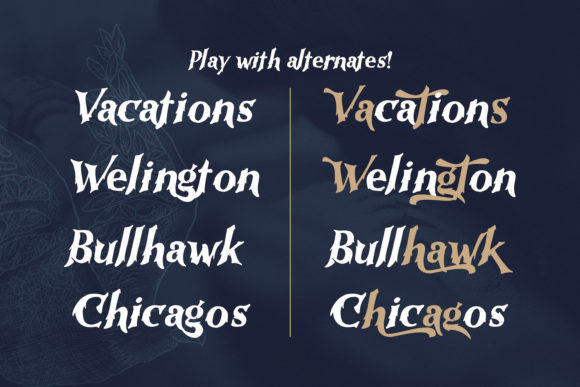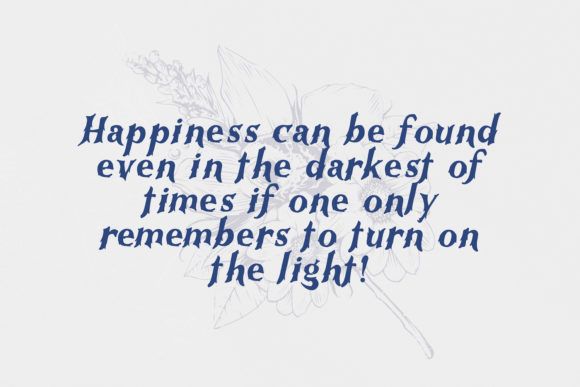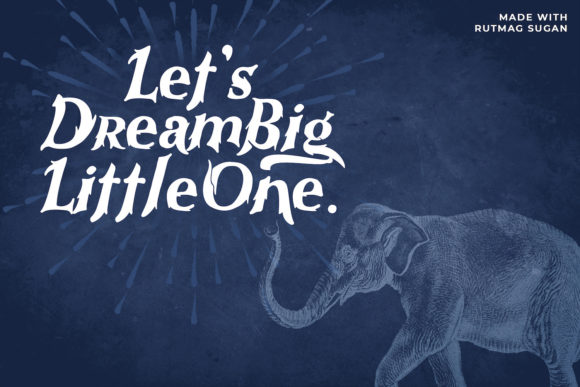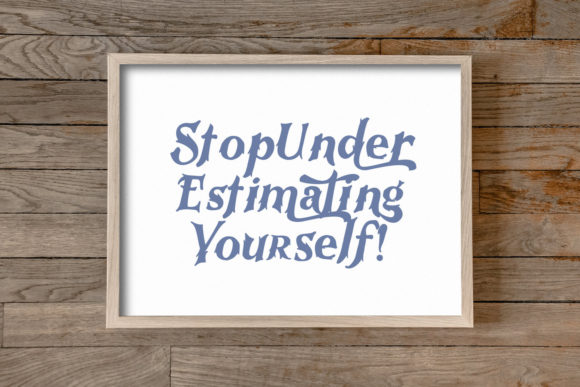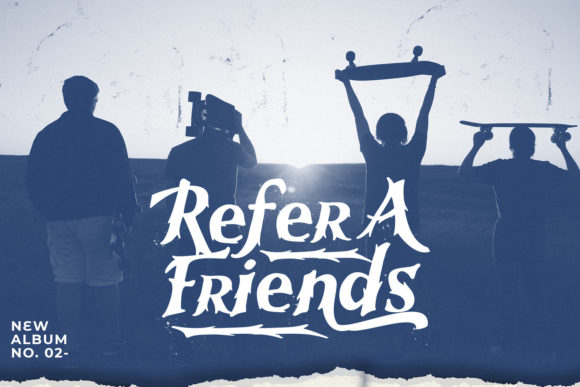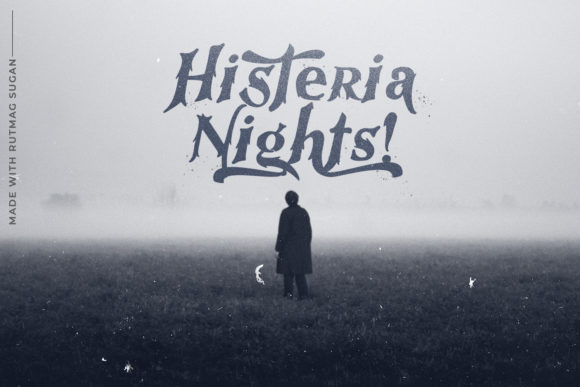
Introduction to Rutmag Sugan Font
Have you ever been working on a creative project and found the perfect font to elevate your design, but only to realize it’s no longer available for download? The frustration is real. But what if I told you about a game-changing display font that’s not only high quality but also free to download?
Meet the Rutmag Sugan Font, a unique and stylish typeface that’s about to take your design to the next level. With its interestingly shaped characters and cool modern flair, this font is perfect for adding a touch of sophistication to your projects. Whether you’re working on a branding project, creating a social media campaign, or designing a website, the Rutmag Sugan Font is a valuable resource that’s sure to impress.
So, what makes the Rutmag Sugan Font so special? For starters, its transparent background allows it to blend seamlessly with any design element, making it a versatile design resource that’s perfect for a wide range of creative projects.
Key Features of Rutmag Sugan Font
- The Rutmag Sugan Font is a high-quality design resource ideal for creative projects requiring a unique and stylish touch.
- This free download font features a transparent background, allowing for seamless integration with various design elements.
- Rutmag Sugan Font is a versatile design element, suitable for use in various contexts, including logos, headings, and body text.
- The font’s unique characteristics, including its elegant and modern design, make it an excellent choice for creative projects requiring a touch of sophistication.
Honest Review: Rutmag Sugan Font
I recently stumbled upon the Rutmag Sugan Font, and I must say it’s a great addition to any designer’s toolkit. This font is perfect for any creative project that requires a unique and elegant touch. With its high quality design, it’s no wonder why it’s become a popular design resource among designers.
One of the things that stands out about the Rutmag Sugan Font is its transparent background, which makes it easy to customize and blend with any design. This feature is especially useful for designers who want to add a professional touch to their work.
Here are some of the things that work well about the Rutmag Sugan Font:
- Unique and elegant design
- High quality and transparent background
The Rutmag Sugan Font is a high-quality, free download design resource ideal for creative projects. Its transparent background makes it perfect for overlaying on images or using as a standalone element.
Tips for Getting the Most Out of Rutmag Sugan Font
Experiment with different font sizes and colors to create a visually appealing design. You can also combine the Rutmag Sugan Font with other design elements to create a unique look.
The Rutmag Sugan Font is ideal for use in a variety of creative projects, including logos, social media graphics, and infographics. Its high-quality design and transparent background make it a versatile design resource.